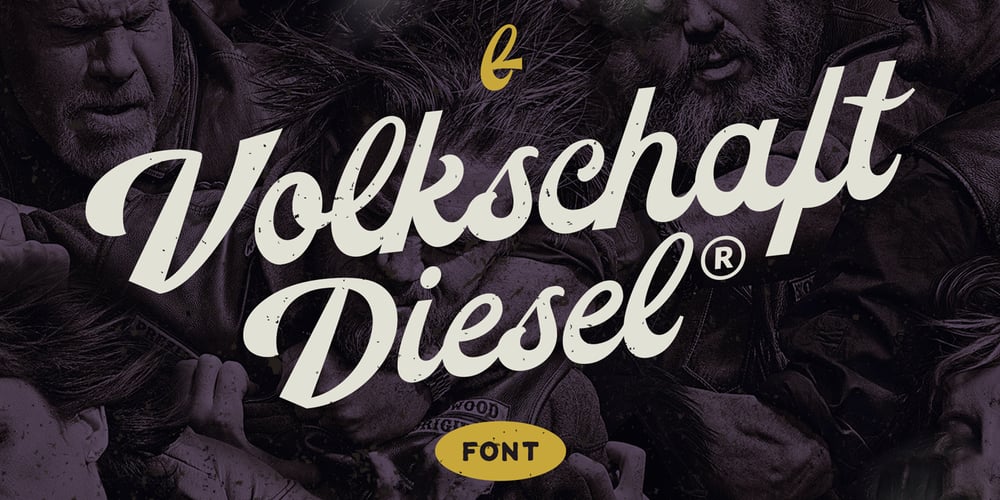
Volkschaft TF Font Family was designed by Firman Suci Ananda, Fajar Wahyu Pribadi and published by Tyfomono. Volkschaft TF contains 2 styles and family package options. Introducing the new script font called Volkschaft. High quality script font with swashes inspired by retro propaganda poster and graphics. Plus OpenType features with Stylistic Alternates, Swashes, Ligatures, Stylistic set that allows you to mix and match pairs of letters to fit your design. This font is good for vintage design, t-shirt, logo, labels, badges, posters and etc.